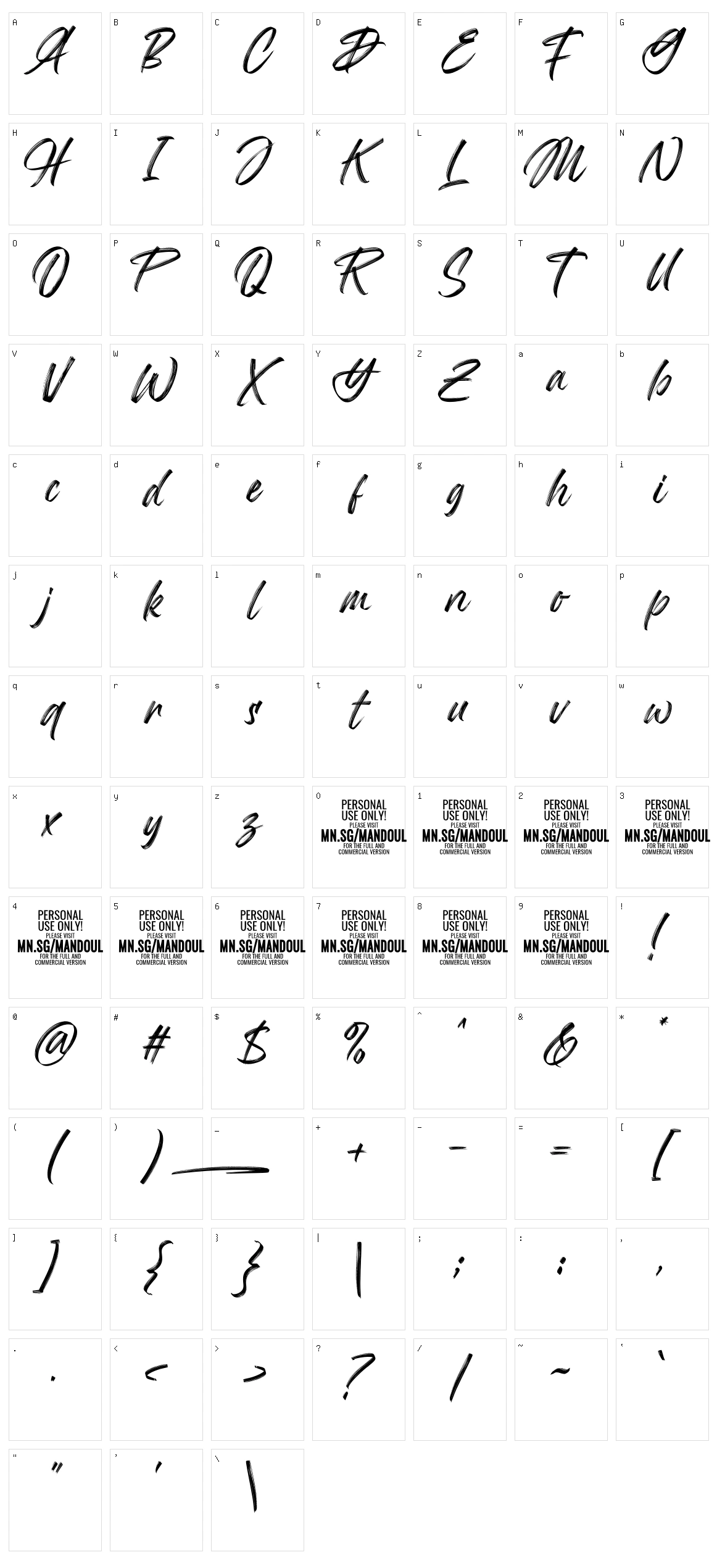
Mandoul Brush is a supercharged, street-wise calligraphy typeface bursting with energy.
With extra attention to quick letterforms and sharp details, this brush typeface turns any graphic project into a vivid and optimistic work. Its handwritten paintbrush strokes are created with real brush and paint, ensuring a genuine and truly artistic typographic design.
It is provided as Regular and Italic.
Use underscore _ anywhere in a word to create a swash.
Example: Hand_script
Use multiple underscores for different swashes.
Example: Bea__utiful
Mandoul is built with advanced OpenType functionality and has a guaranteed top-notch quality, containing stylistic and contextual alternates, ligatures and more features; all to give you full control and customizability.
It has extensive lingual support, covering all Latin-based languages, from North Europe to South Africa, from America to South-East Asia.
It contains all characters and symbols you'll ever need, including all punctuation and numbers.